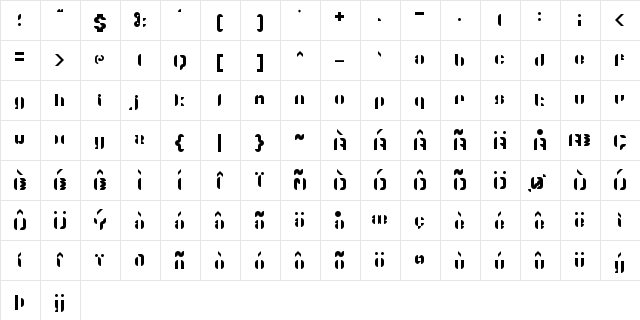
5Structonix Regular
| Designer | Noah - 10 year old typomaniac |
Design Context for 5Structonix Typeface
5Structonix is a composed and adaptable typeface that performs quietly and consistently across a wide range of design contexts.